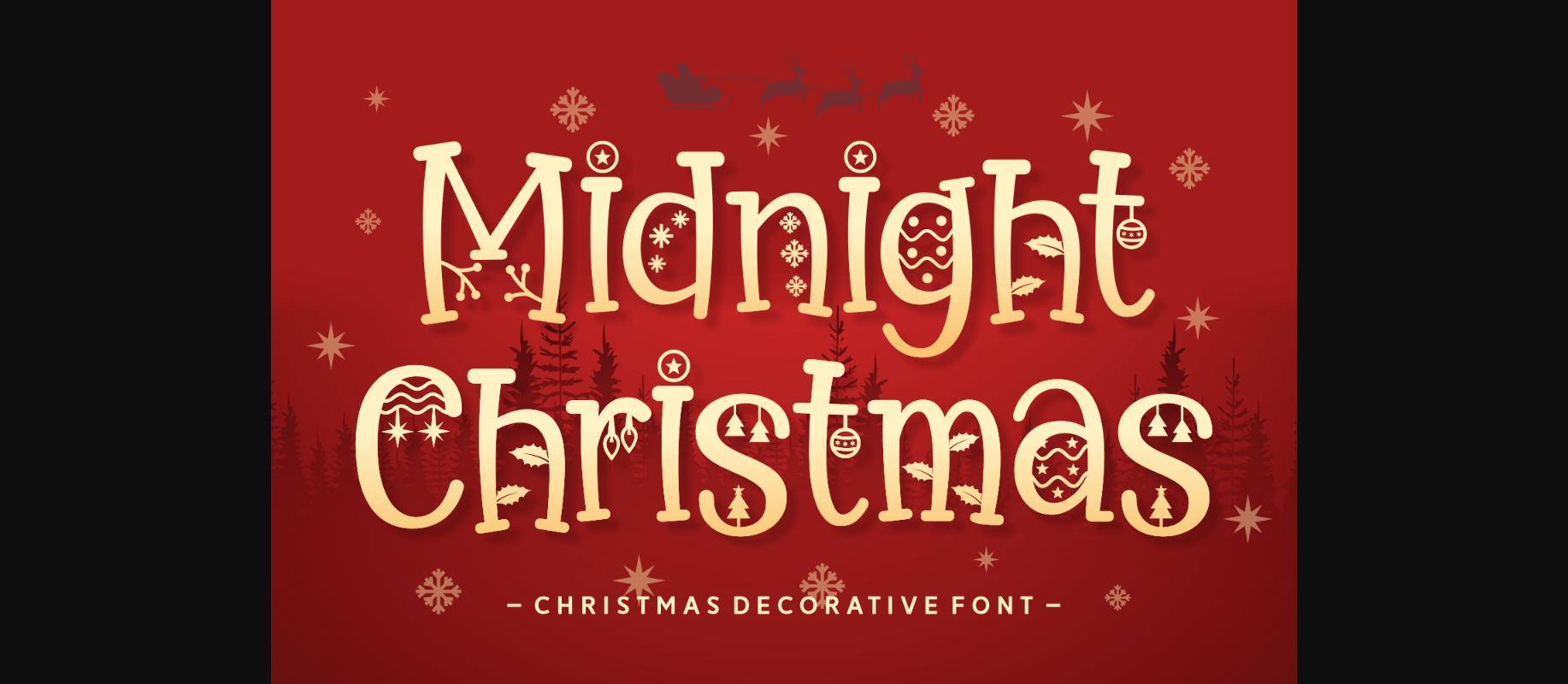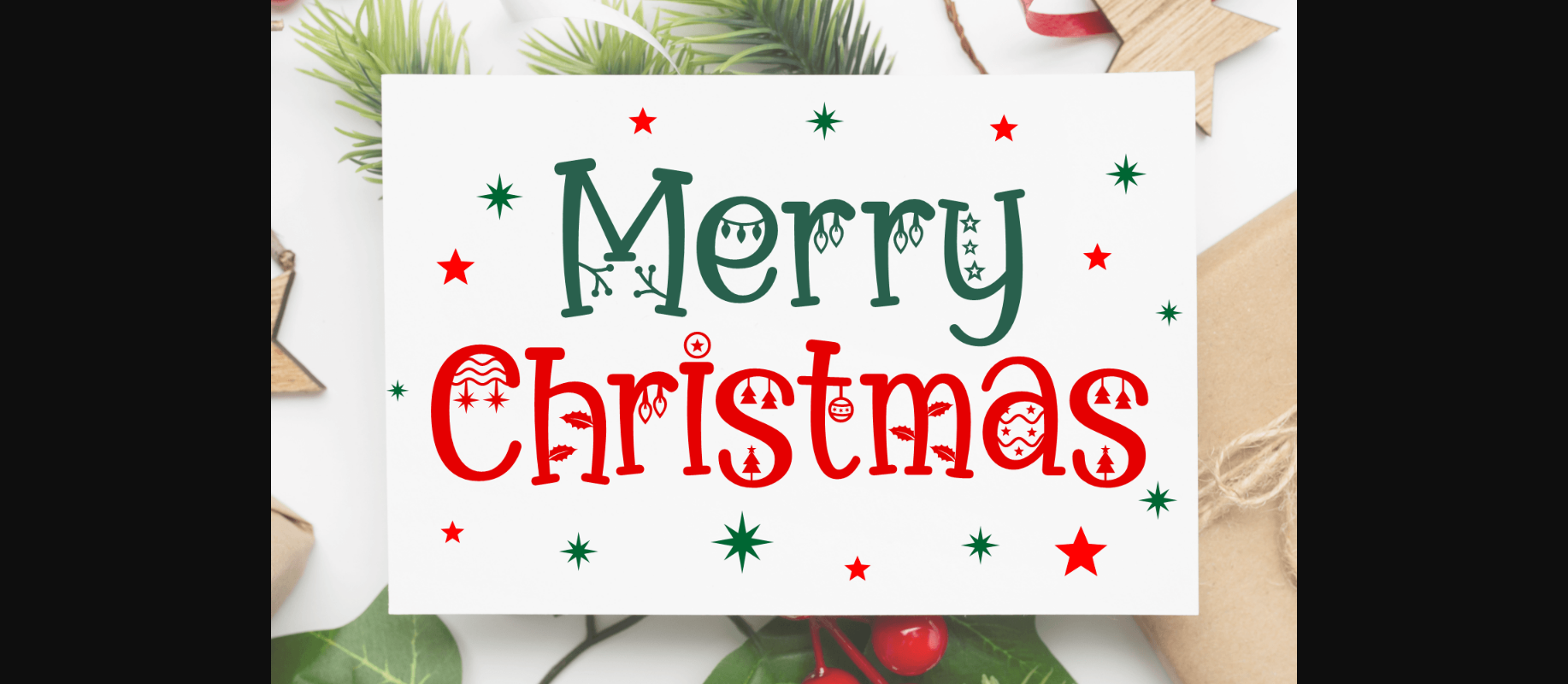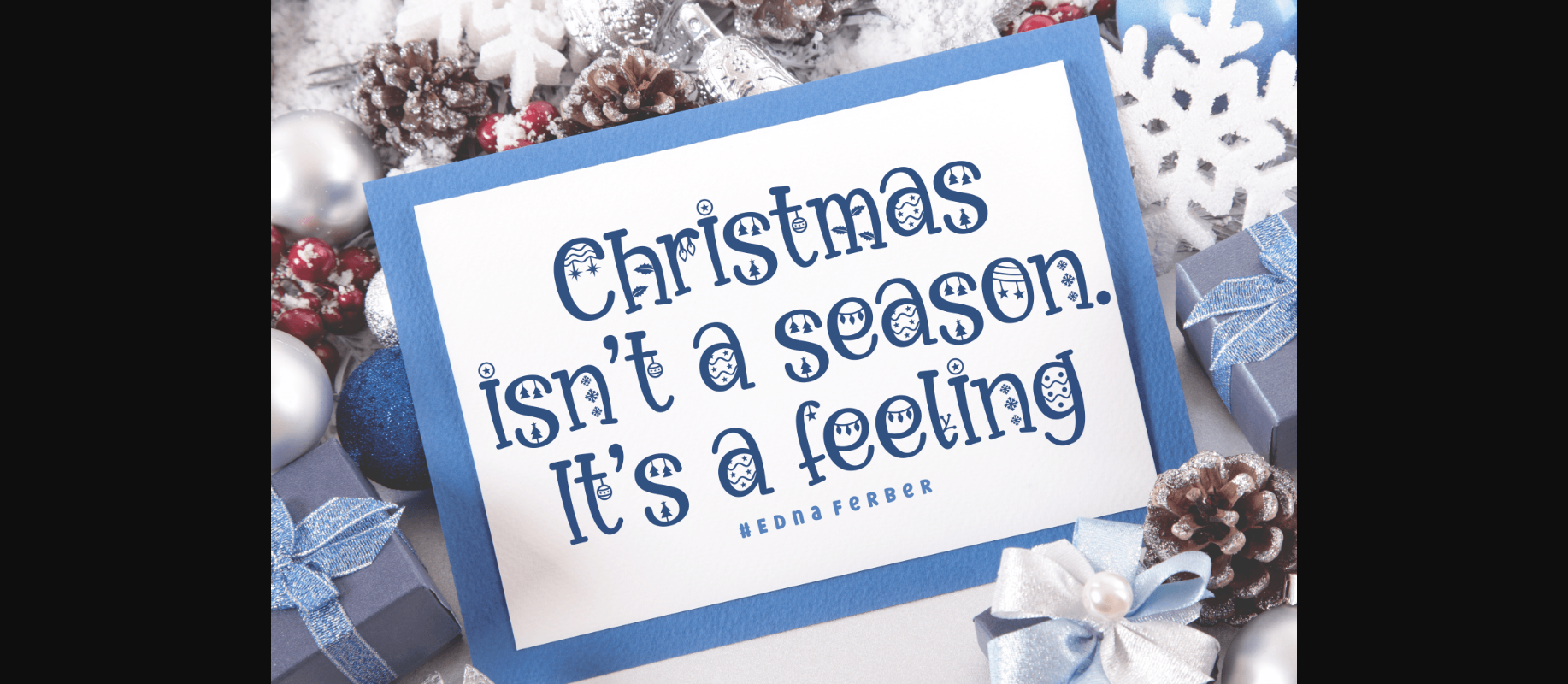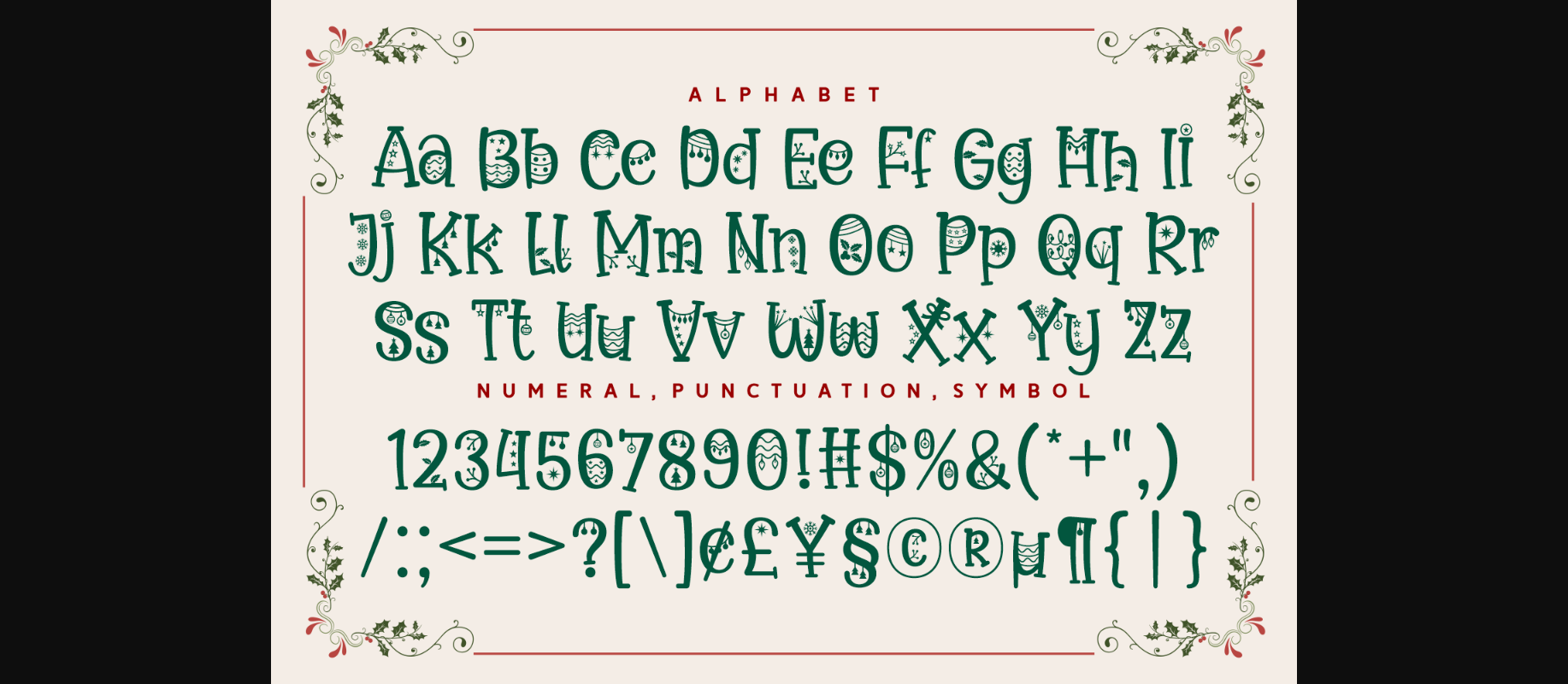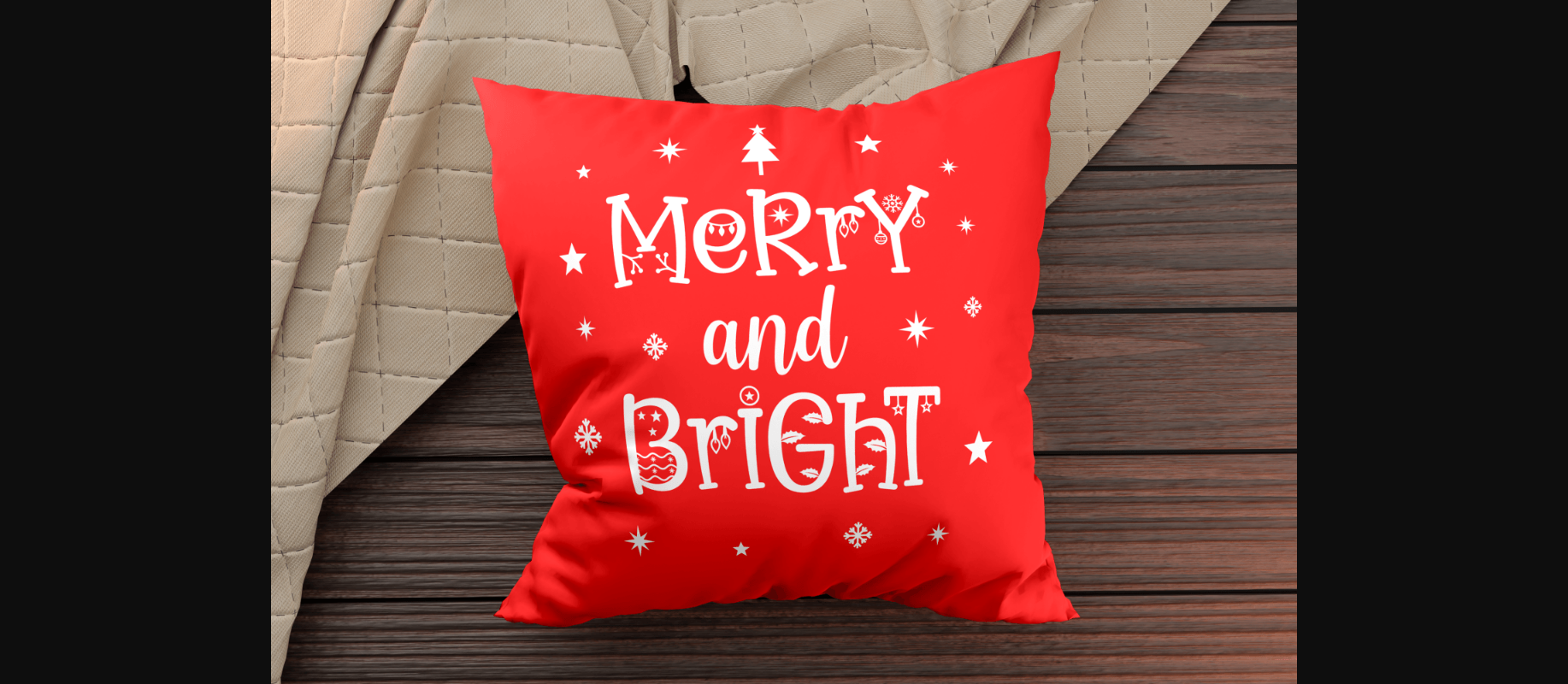
Midnight Christmas Font
About Midnight Christmas Font
Midnight Christmas is a fun and festive display font. It is perfect for any winter and Christmas-themed branding project, product packaging, invitation, quote, t-shirt, label, poster, or logo that you wish to create.